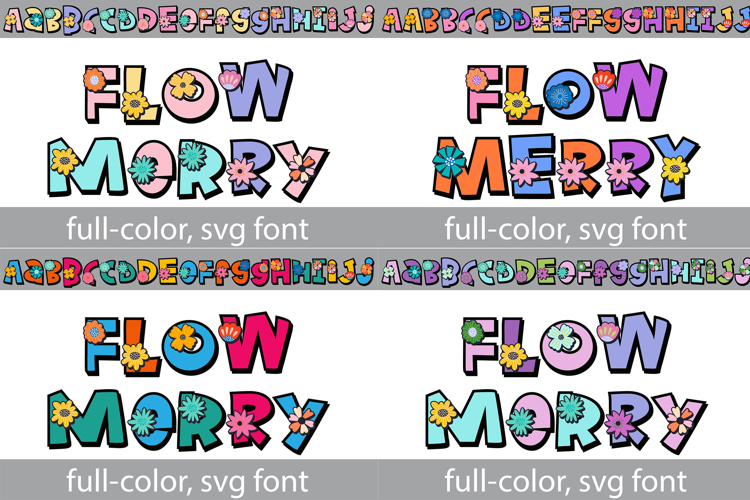
Flowmerry Color
This hand-crafted font bundle contains 4 full-color fonts featuring merry florals. All the fonts have florals throughout and an alt case of each uppercase and lowercase letter in a different, color.